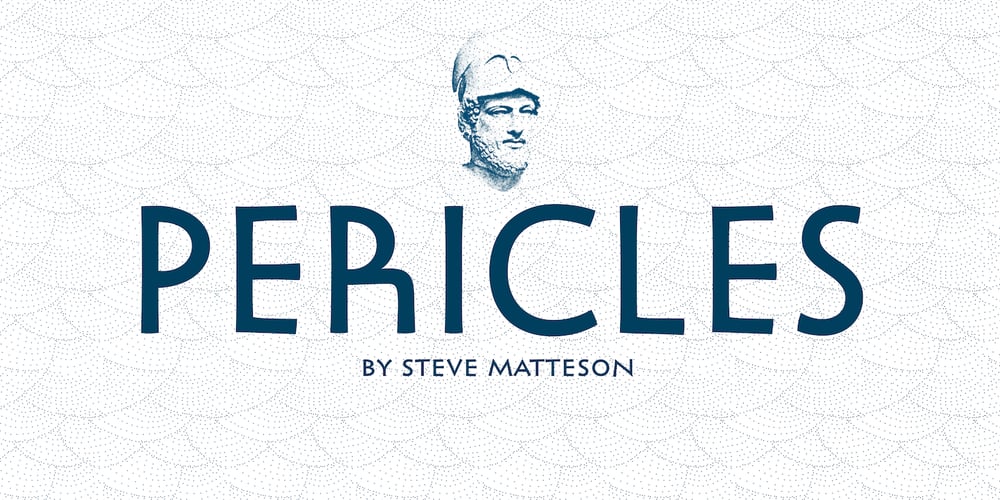
Pericles Font Family was designed by Steve Matteson and published by Ascender. Pericles contains 2 styles and family package options. Pericles Pro is an attractive typeface for headlines and short passages of text which recall inscriptional lettering and playful, art deco design. There are two weights of Pericles Pro, Light and Regular, containing OpenType-enabled typographic features with alternative characters for creating eye-popping effects in headlines, book titles, banners, and greeting cards. Each Pericles Pro font includes 433 glyphs. This includes 12 stylistic alternates and 17 ligatures to mix and match with a full set of capitals, small capitals, superscript, subscript and petite small capital letters. Pericles Pro was developed to take advantage of the rich typographic OpenType features of applications Adobe Creative Suite, as well as Windows Presentation Foundation (WPF) and the forthcoming QuarkXPress 7.